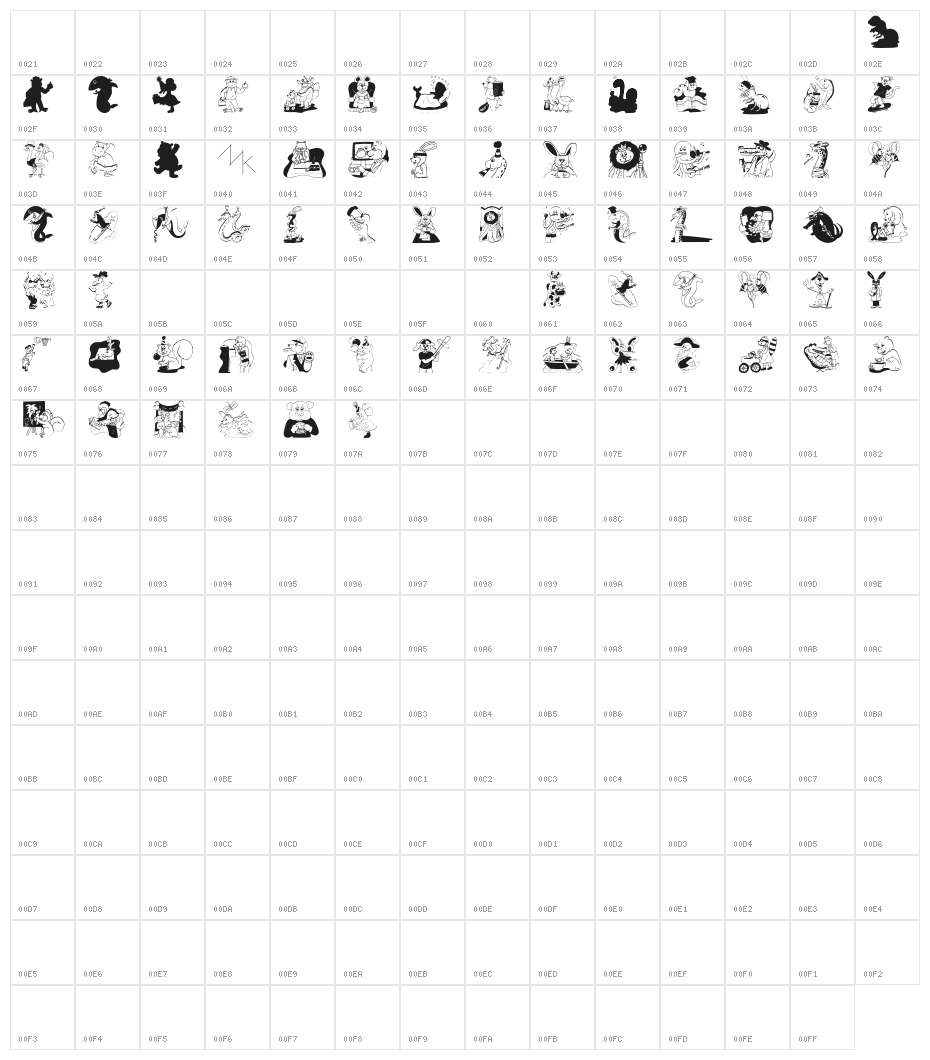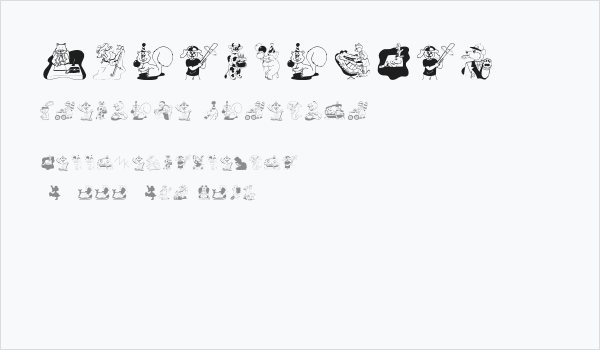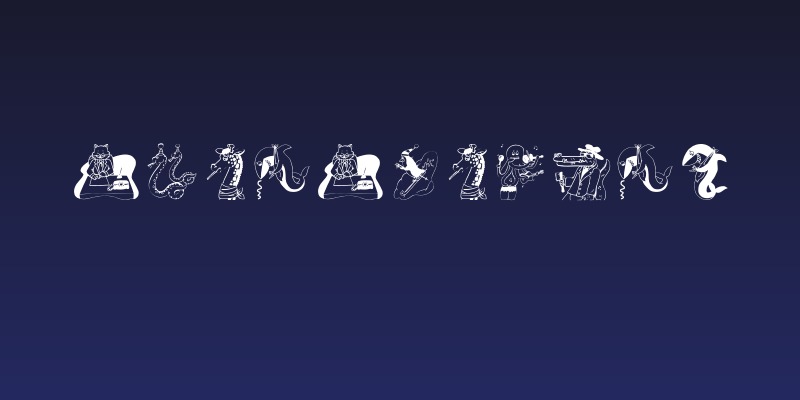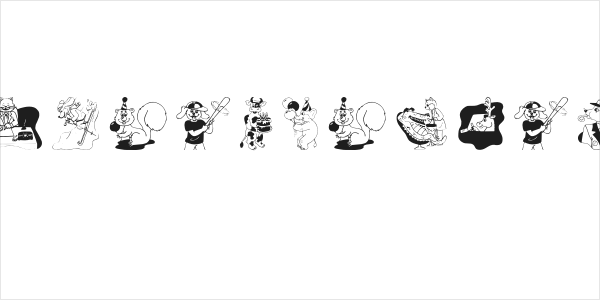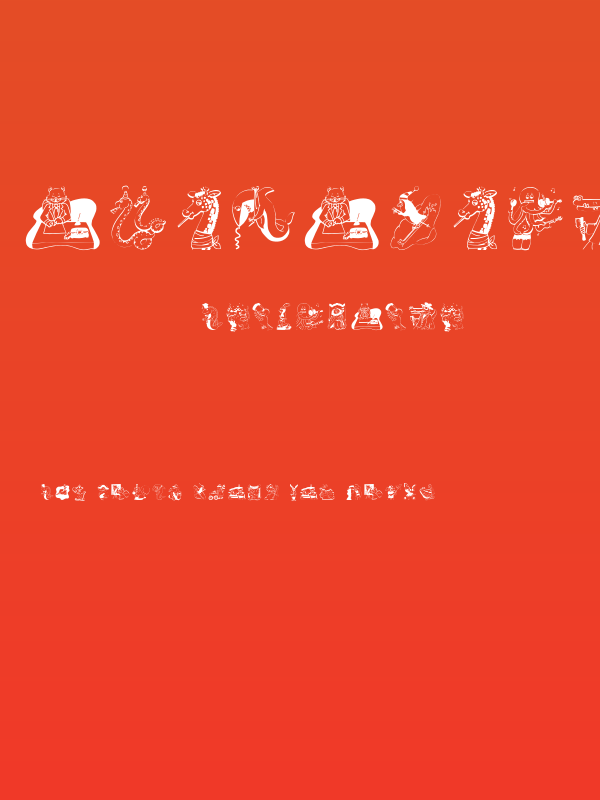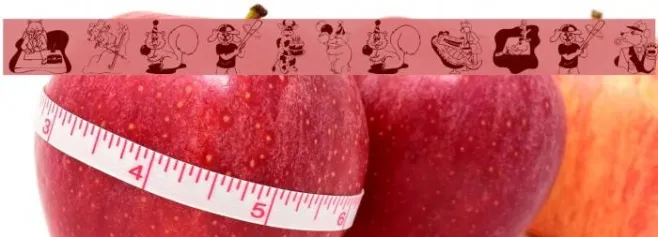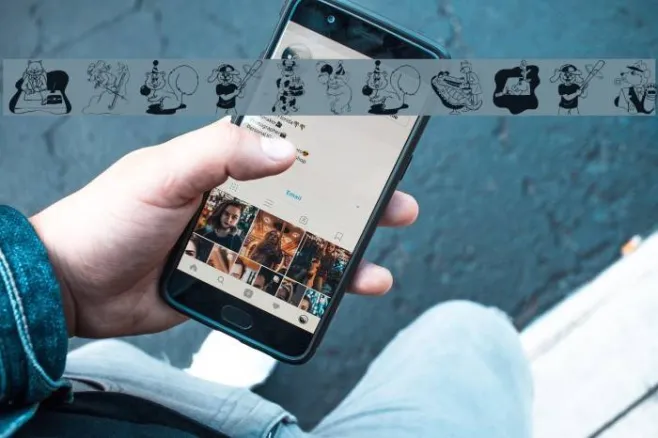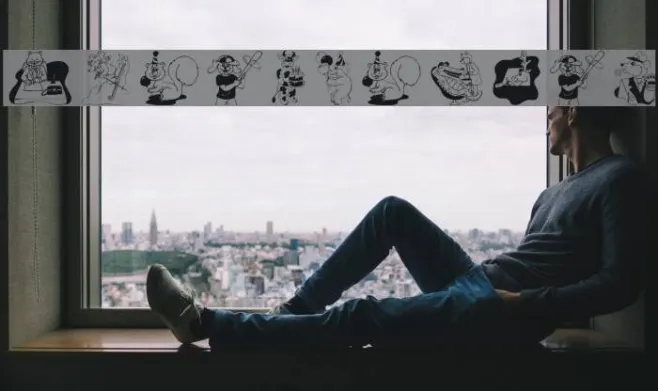
Animalishmk Font
Animalishmk Description
A playful decorative font where each character is represented by a whimsical cartoon animal or anthropomorphic creature, often engaged in various activities. The illustrations are detailed, with a mix of solid black fills and fine linework, creating a lively and humorous appearance.
| Overall Style | Playful, Whimsical, Decorative |
| Use Case | Headlines, Posters, Logos, Children’s content |
| Proposed Projects | Children’s books, educational materials, party invitations, playful branding, posters, greeting cards. |